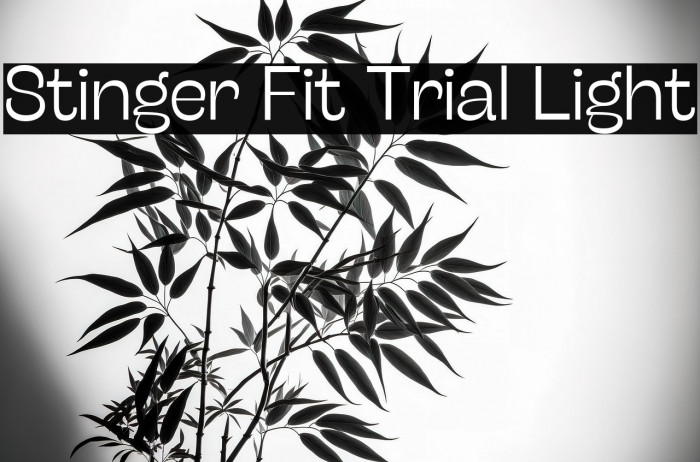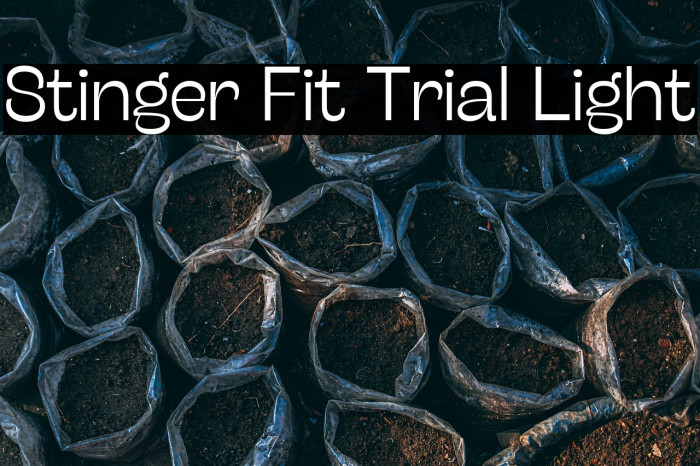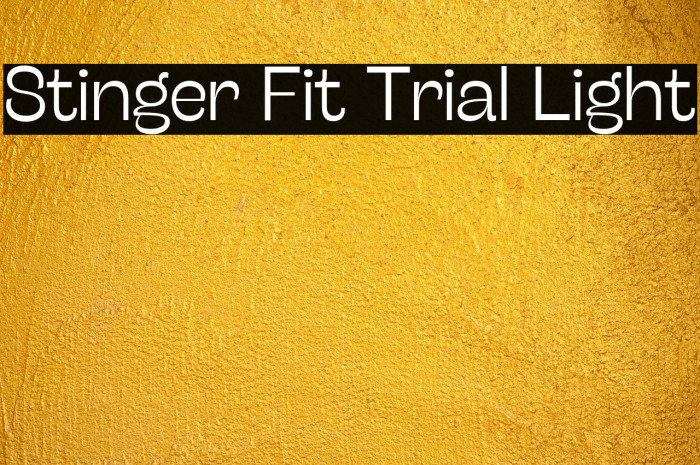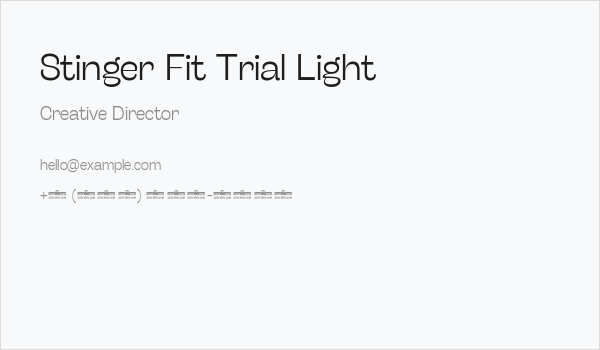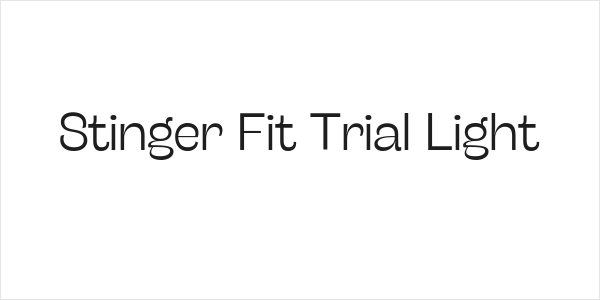
Stinger Fit Trial Light Font
Stinger Fit Trial Light Description
This font features a clean and modern sans-serif design with a light weight, making it ideal for contemporary applications. The characters are evenly spaced with a normal width, providing excellent readability. The uppercase and lowercase letters maintain a consistent style, with smooth curves and straight lines that contribute to its minimalist aesthetic. The numerals and special characters are designed to match the overall style, ensuring uniformity across all text elements. This font is versatile, suitable for both digital and print media, and can be used effectively in a variety of design projects.
| Proposed Projects | Ideal for websites, branding, advertising, and editorial design. |